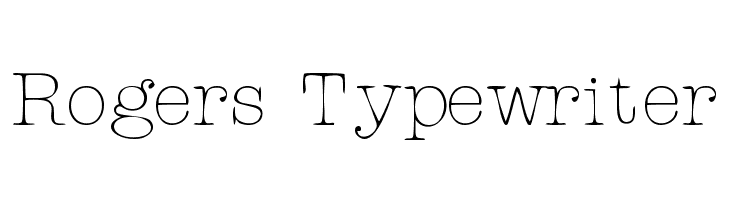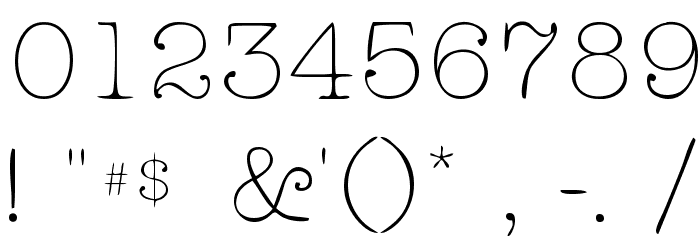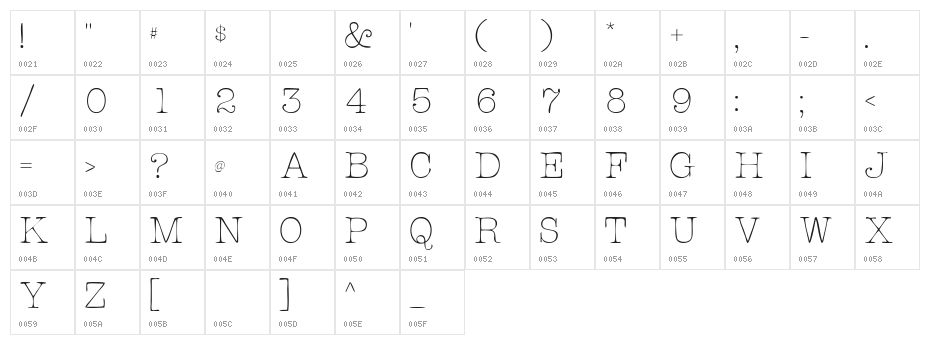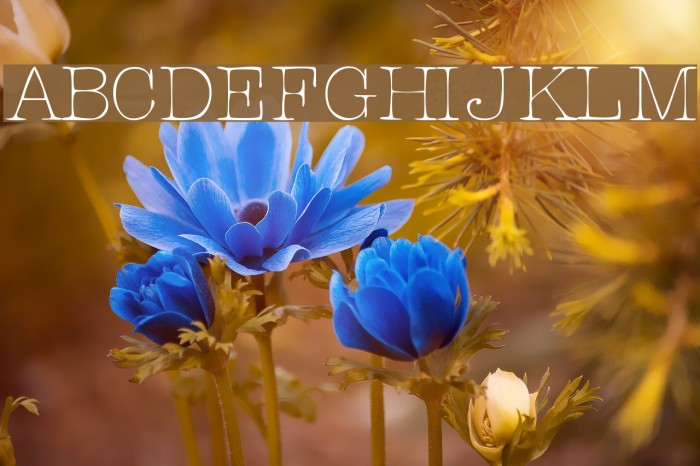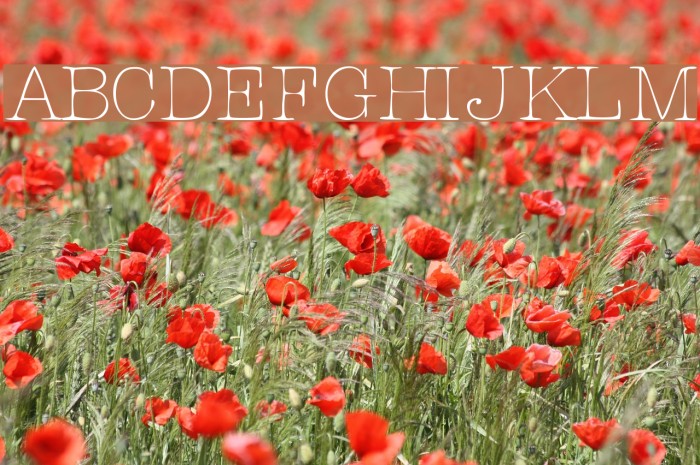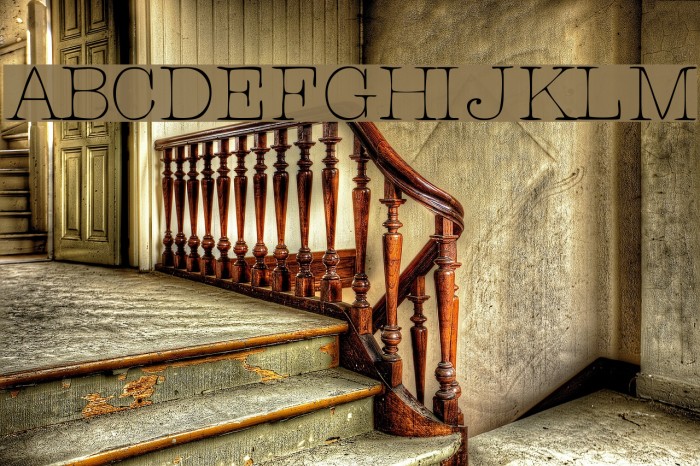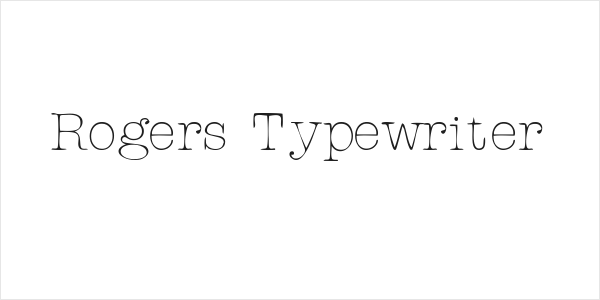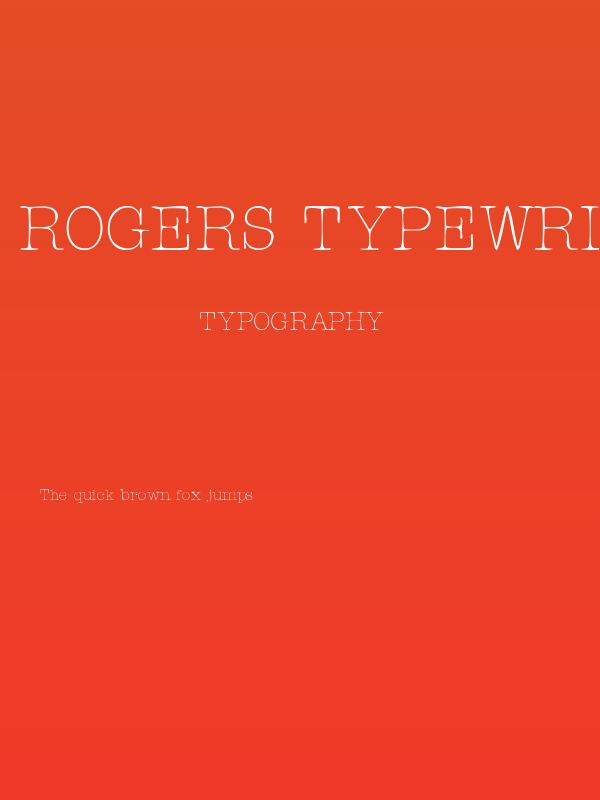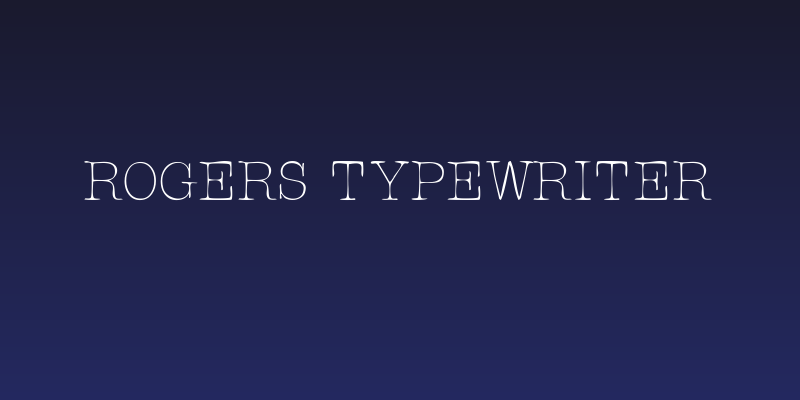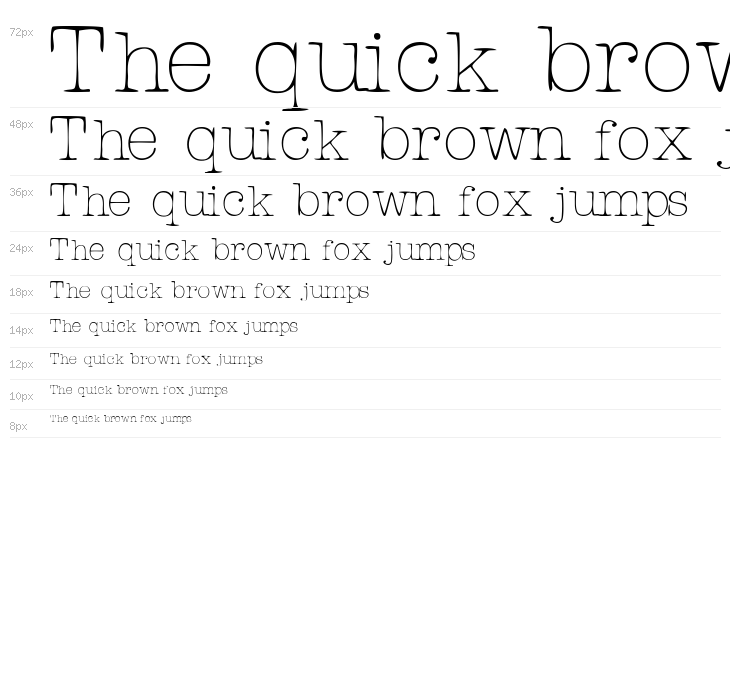
Rogers Typewriter Font
Rogers Typewriter Description
This typeface exudes a vintage charm reminiscent of classic typewriter fonts. Each character is crafted with a distinct monospaced design, providing a uniform appearance across all letters and numbers. The strokes are consistent in width, offering a clean and precise look. The serifs are subtle yet present, adding a touch of elegance without overwhelming the overall simplicity. The font maintains a balanced contrast, ensuring readability while preserving its nostalgic aesthetic. Its structured form and clear legibility make it ideal for projects that require a retro or mechanical feel.
| Proposed Projects | Ideal for retro-themed designs, typewriter art, coding projects, or any work requiring a mechanical aesthetic. |